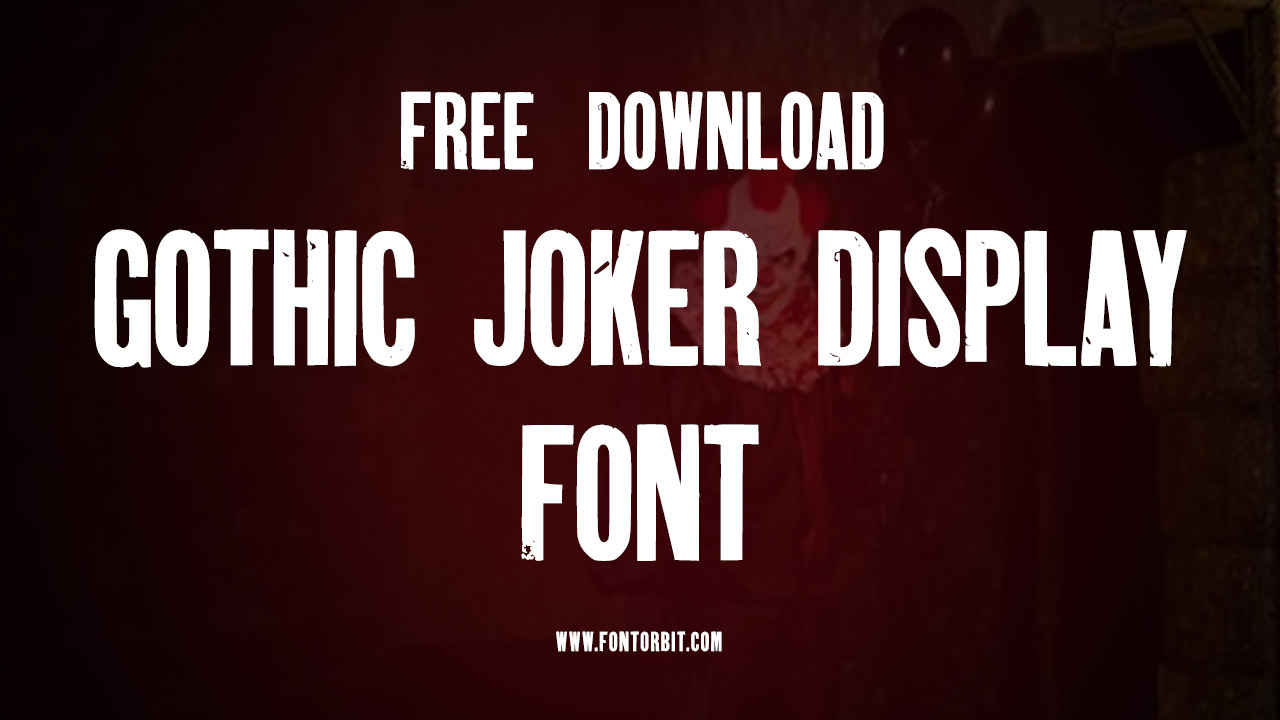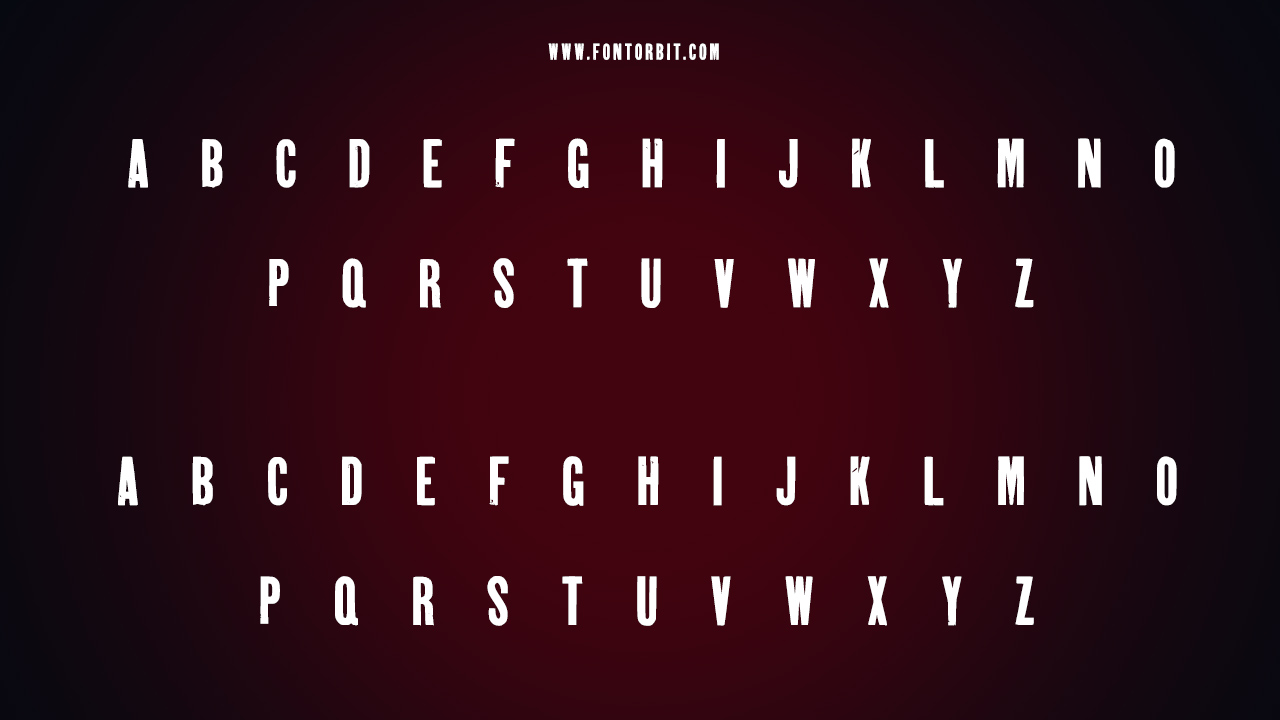
The Gothic Joker Display Font, designed by KELGE Fonts, is a bold, vintage-inspired typeface known for its unique, retro aesthetic and handcrafted feel. Gothic Joker adds a distinctive touch to your projects with its imperfect shapes and striking design.
The Gothic Joker Display Font Family
- Gothic Joker Regular
- Gothic Joker Rough
- Labels
- T-shirts
- Packaging
- Public Signage
- Promotional Videos
Gothic Joker Display Font shines in, delivering your designs a bold, retro touch. Its versatile styles are perfect for creating impactful headlines, distinctive logos, and engaging branding materials.
Gothic Joker Display Font’s bold, vintage design makes it an excellent choice for creating eye-catching headlines, distinctive logos, and impactful branding. Its handcrafted styles offer a range of options for both modern and retro-inspired projects.
1.What Is The Gothic Joker Display Font?
Gothic Joker Display is a bold, vintage-inspired typeface by KELGE Fonts, known for its unique retro design and handcrafted styles.
3.What Are The Key Features Of The Gothic Joker Display Font?
Gothic Joker features bold, retro designs with imperfect shapes and handcrafted elements, which are ideal for creating striking, vintage-inspired designs.
4.How To Use The Gothic Joker Display Font In Design?
Use Gothic Joker for eye-catching headlines, unique logos, and distinctive branding to achieve a bold, retro appearance.
5.What Are The International Language Support Options For The Gothic Joker Display Font?